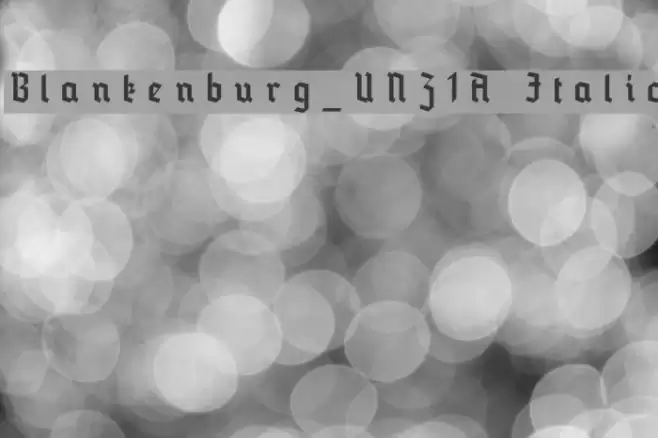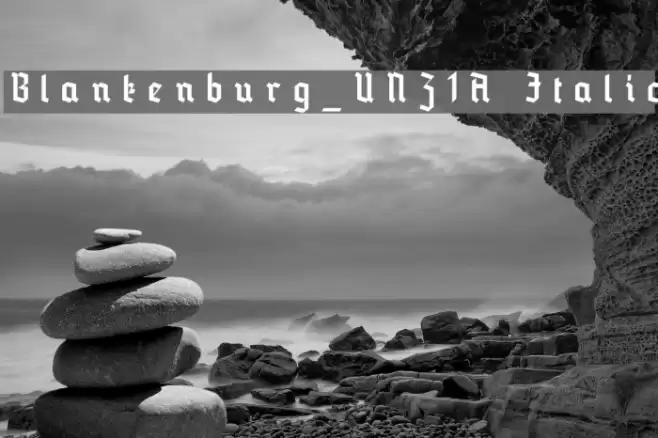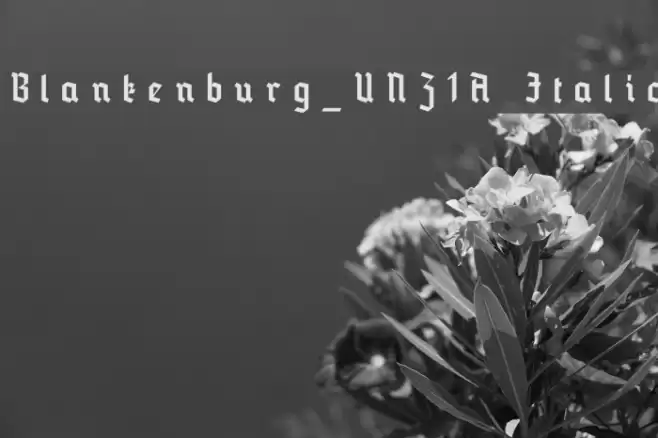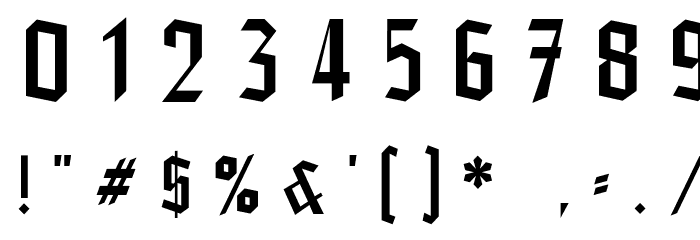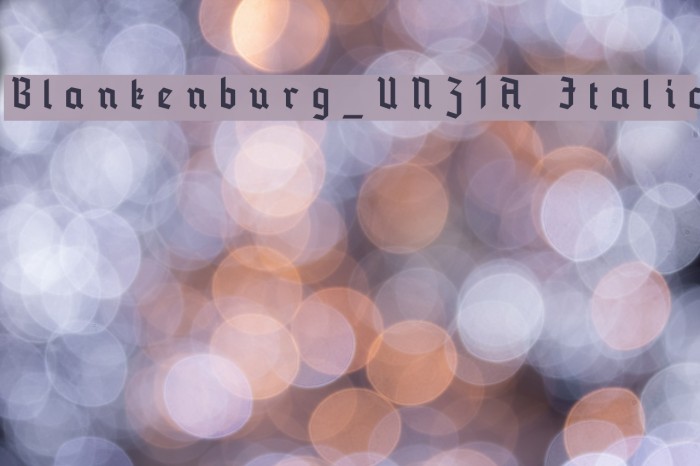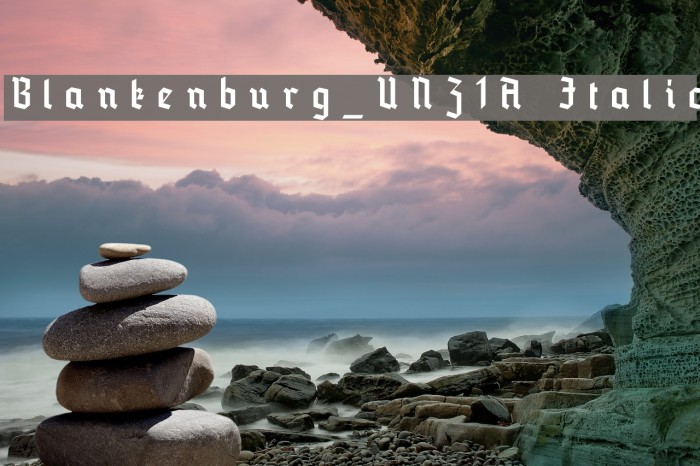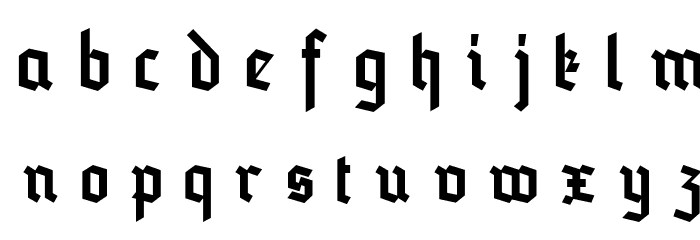
Blankenburg_UNZ1A Italic Font
Blankenburg_UNZ1A Italic Description
This font features a bold and angular design reminiscent of traditional blackletter styles, yet with a modern twist. The characters are sharply defined with strong vertical strokes and pointed serifs, giving it a distinct and authoritative presence. The uppercase letters are particularly striking, with a gothic influence that is both classic and contemporary. The lowercase letters maintain the same angularity, ensuring consistency throughout the typeface. Numbers and special characters are designed with the same boldness, making them stand out effectively. The overall appearance is both decorative and functional, suitable for projects that require a touch of elegance and strength.
A bold, angular blackletter-inspired font with a modern twist from Uncategorized fonts.
- Proposed Projects: Ideal for branding, headlines, posters, and any design requiring a strong, gothic aesthetic.
- Overall Style: Modern, Decorative